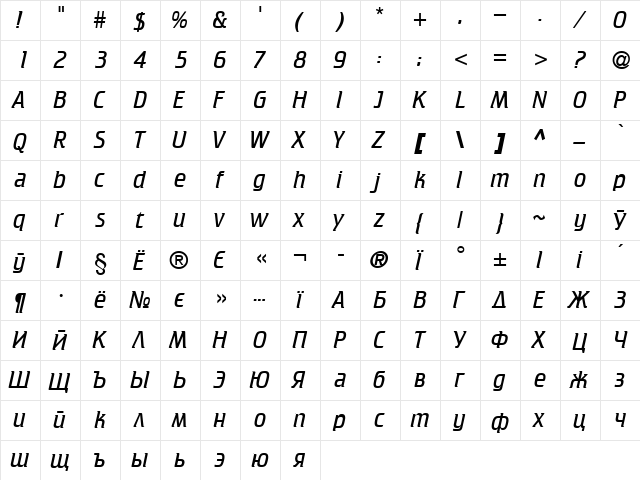
Cricket-Light Normal
Design Context for Cricket-Light Typeface
Cricket-Light is a composed and adaptable typeface that performs quietly and consistently across a wide range of design contexts. Its slender proportions lend an understated elegance to any composition.